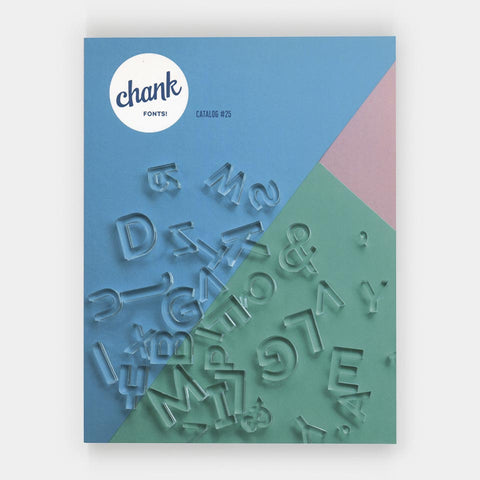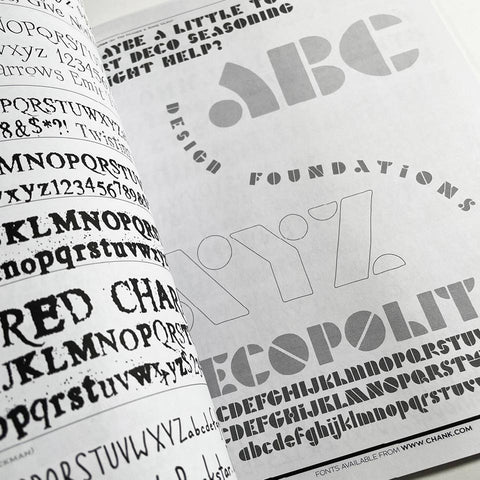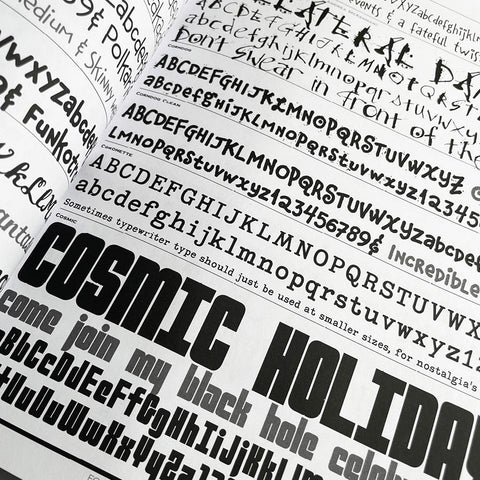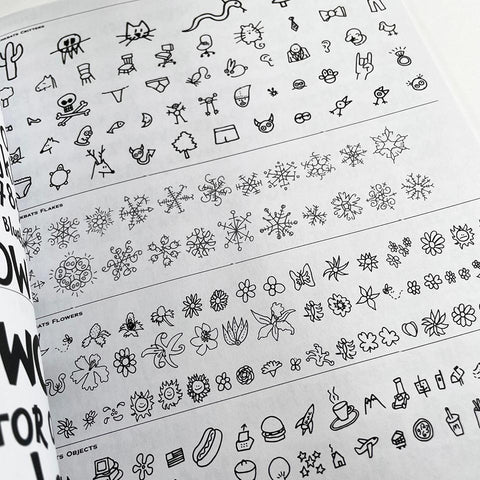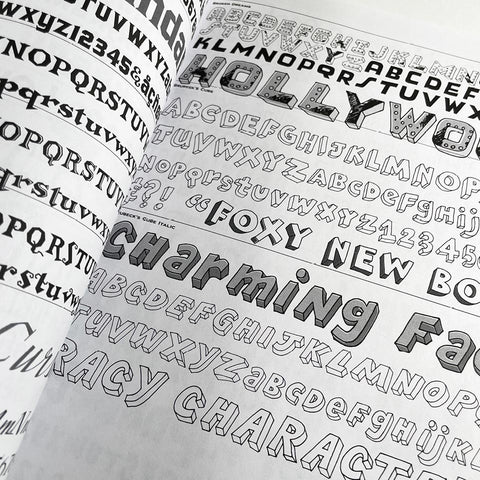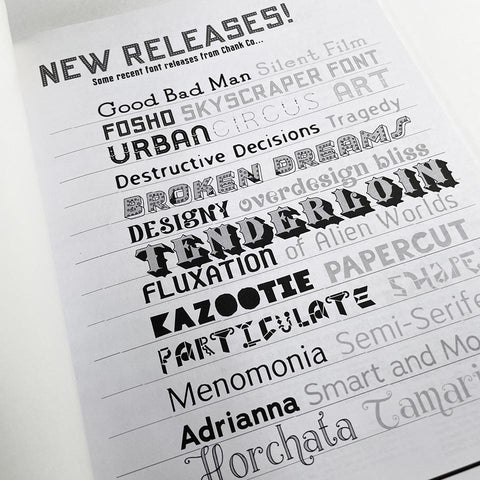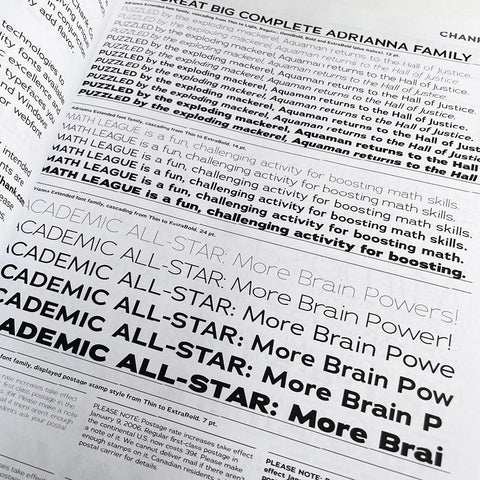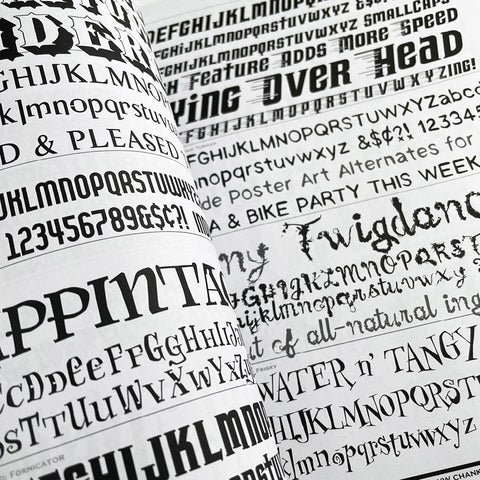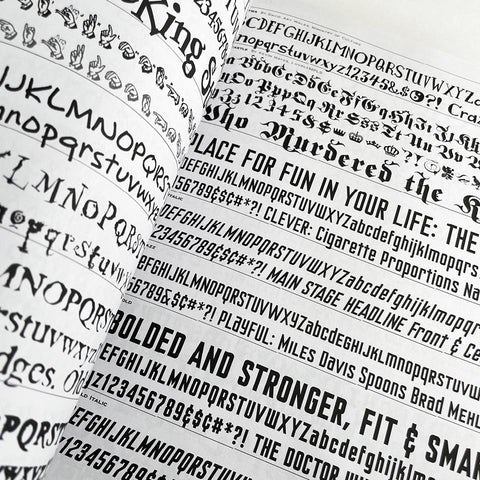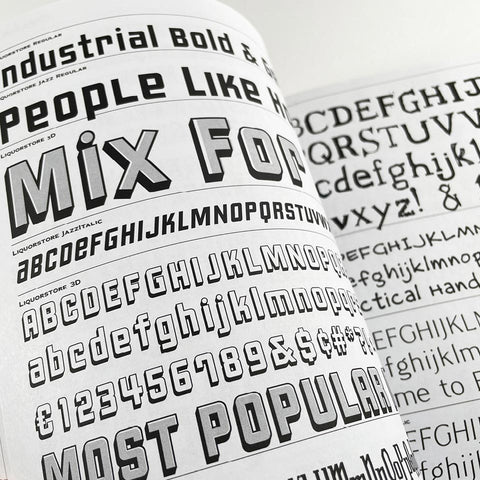
Chank fonts! (Catalogue # 25)
We don’t know everything. For instance, one thing we didn’t know is that there were twenty-four catalogues of fonts from Chank Diesel before this one. And we didn’t even know about this one until we got it from Steve Heller. The internet doesn’t seem to acknowledge these catalogues. And we couldn’t find much much on WorldCat. Still it’s an interesting showcase of limit-pushing and rule-breaking.